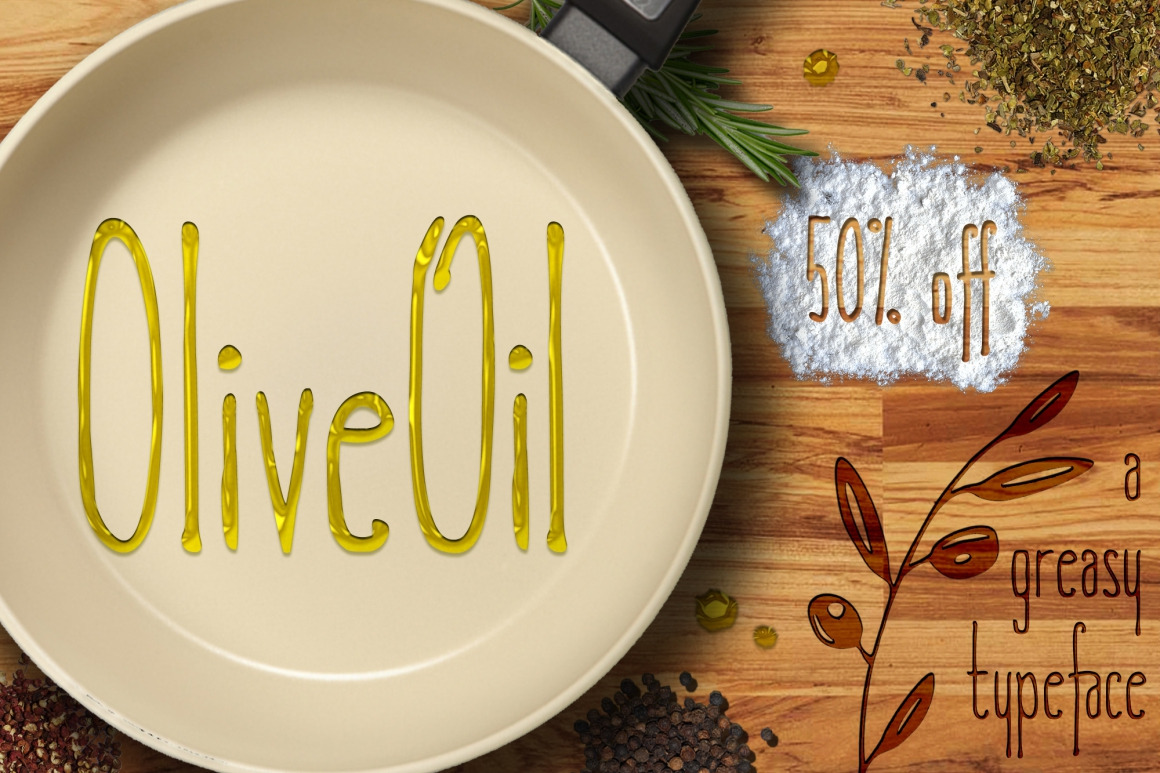
Olive Oil is a new condensed hand-drawn typeface, perfect for projects related to food, restaurants, coffee-shops, crafts, nature and many others looking for that nice, clean & legible handwritten font.
It features almost 300 glyphs, supporting most common languages, but also a wide range of uppercase alternatives to give that special look you're searching for.